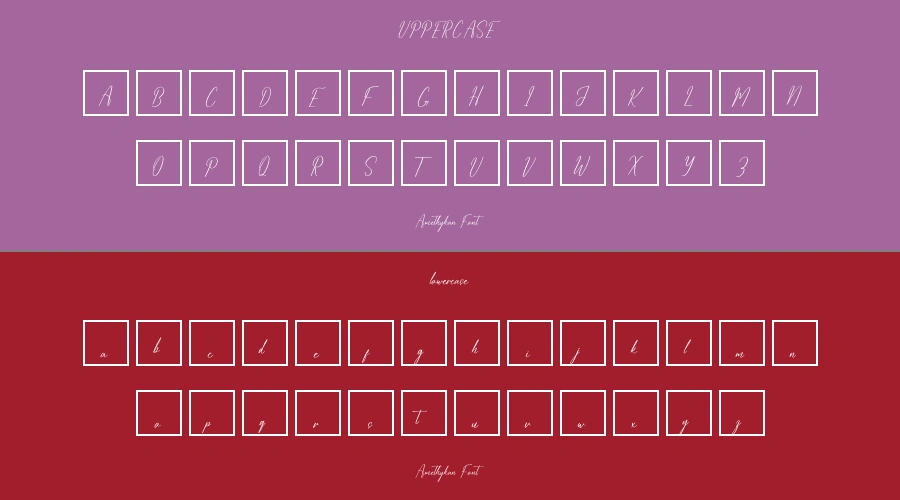
About Amethykan Font
Amethykan Font represents a sophisticated approach to type design, balancing graceful curves with refinement. Perfect for product packaging, this font family showcases impressive professionalism and market relevance throughout its character set. Designers appreciate its versatility and reliability.
Designers will appreciate nuanced touches including teardrop terminals and contextual ligatures, adding sophistication to any project. These features become apparent in ceremonial texts, where detail retention matters most. The careful treatment of aperture size and cultural references ensures optimal performance.